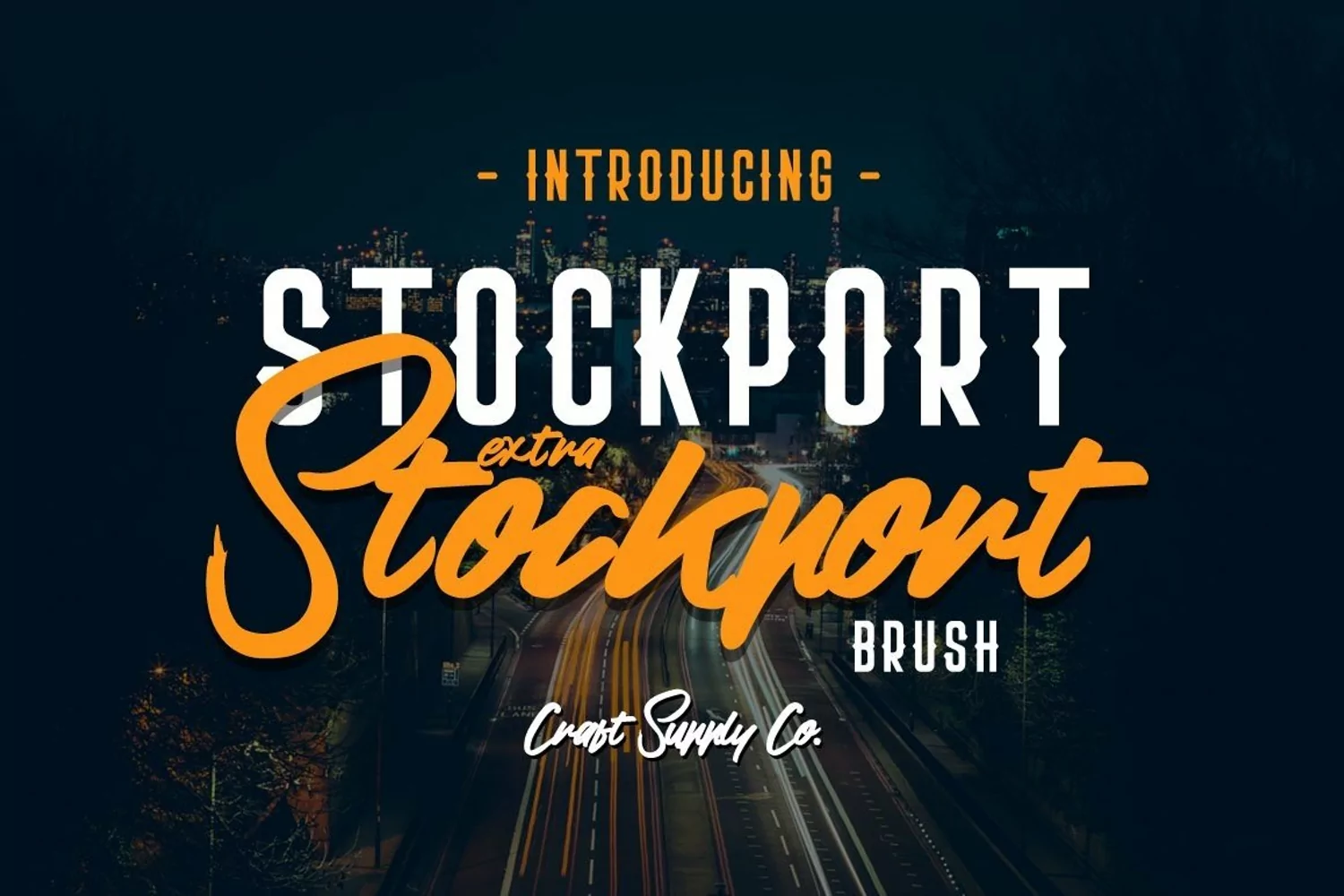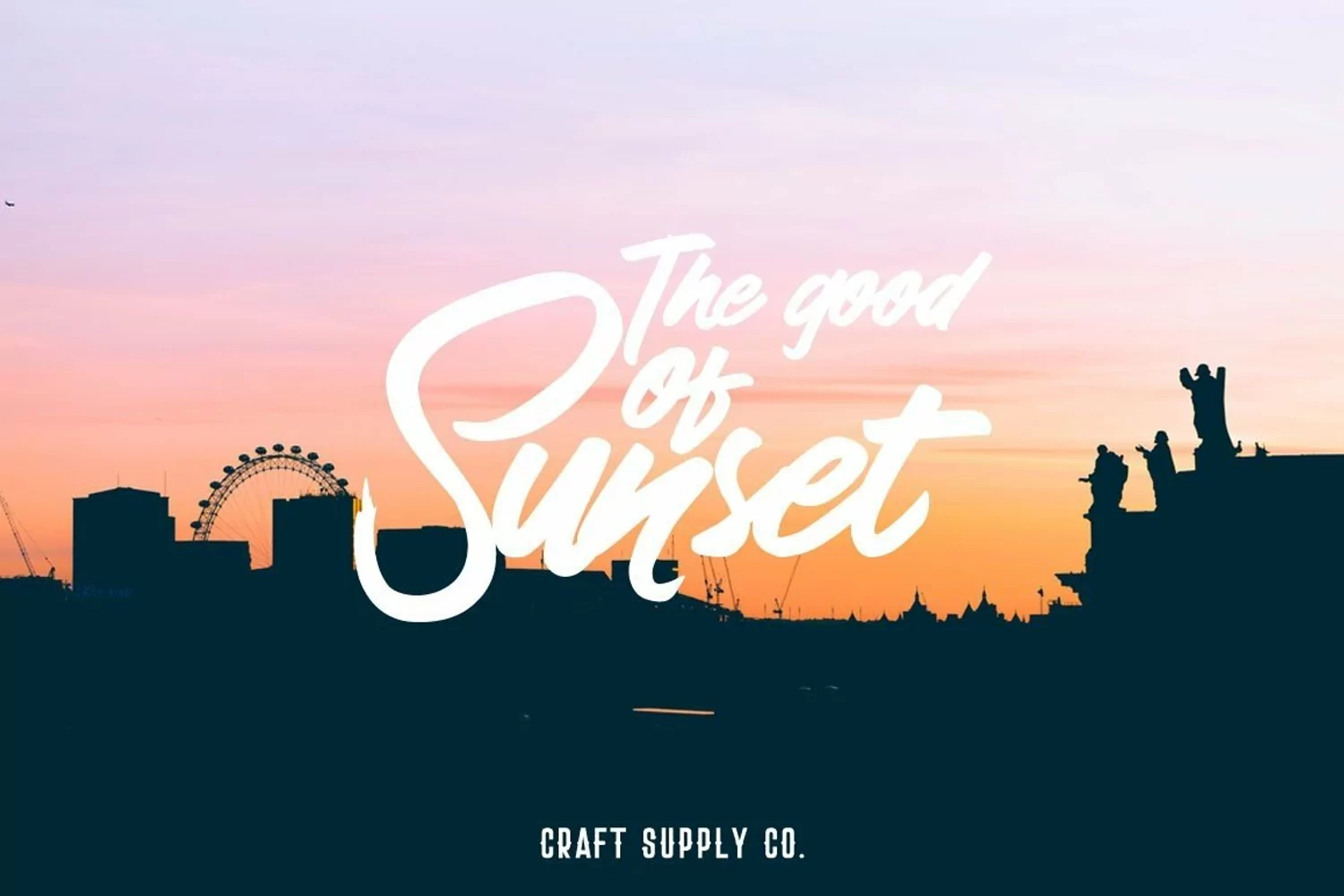
Introducing New Font : Stockport Extra & Brush
Stockport Extra & Brush is a cool combination between Sans Serif and Brush Script Font.Stockport Extra & Brush is suitable for Logo, greeting cards, quotes, posters, branding, name card, stationary, design title, blog header, art quote, typography art, modern envelope lettering or book design.